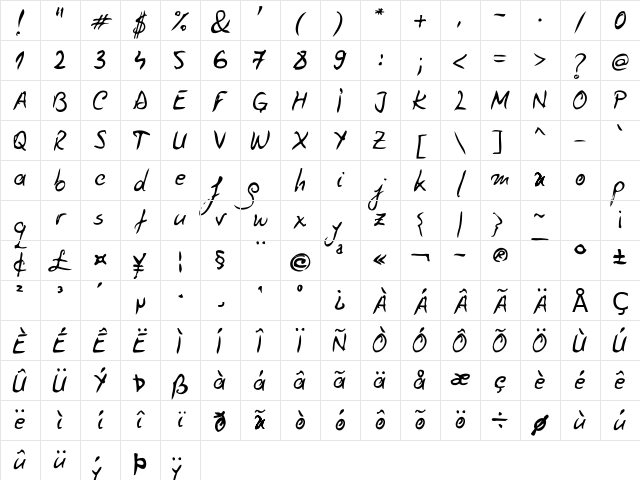
WW Pencil Default Free Font
WW Pencil Default
Style: WW Pencil Default
Foundry: MJP WebWorks USA LLC
Designer: MJP WebWorks USA LLC
Design Context for WW Pencil
WW Pencil is a composed and adaptable typeface that performs quietly and consistently across a wide range of design contexts.